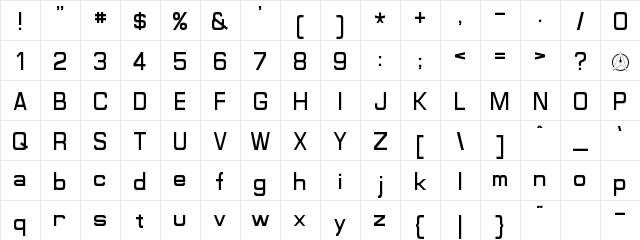
Microgramma Trek Regular
Designer: Neale Davidson
Complete Microgramma Trek Regular glyph index. Displaying only characters natively supported by Microgramma Trek Regular font.
Microgramma Trek is a composed and adaptable typeface that performs quietly and consistently across a wide range of design contexts.